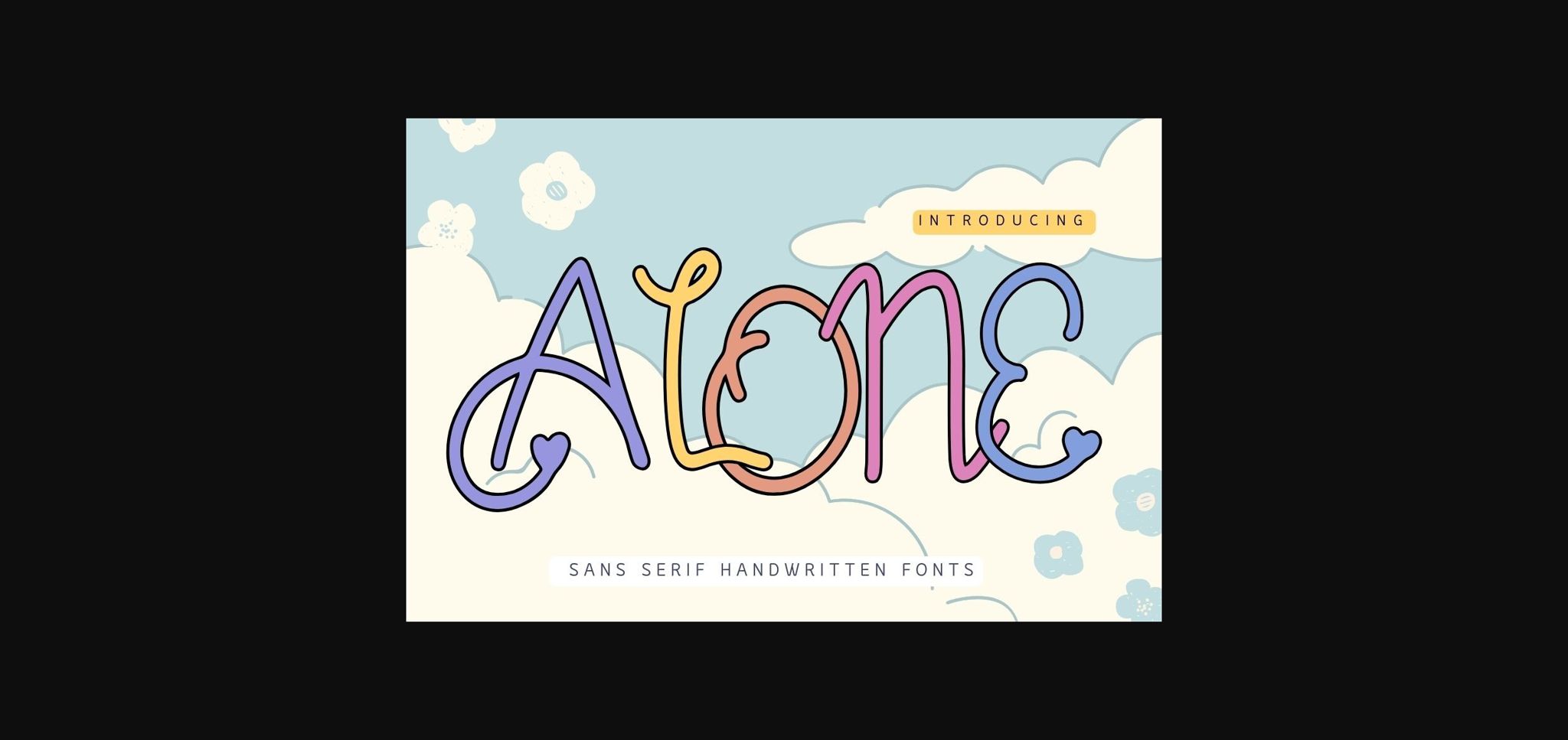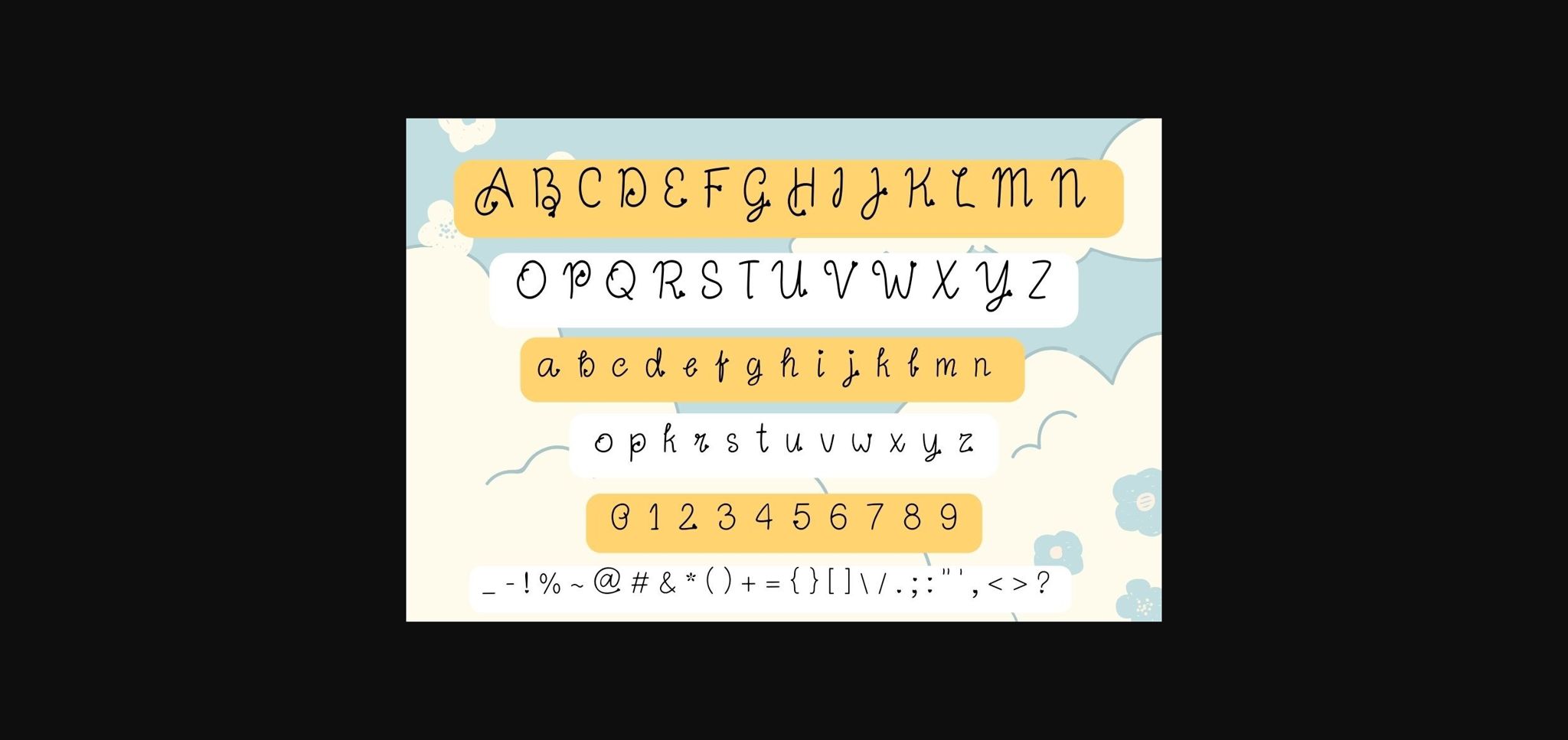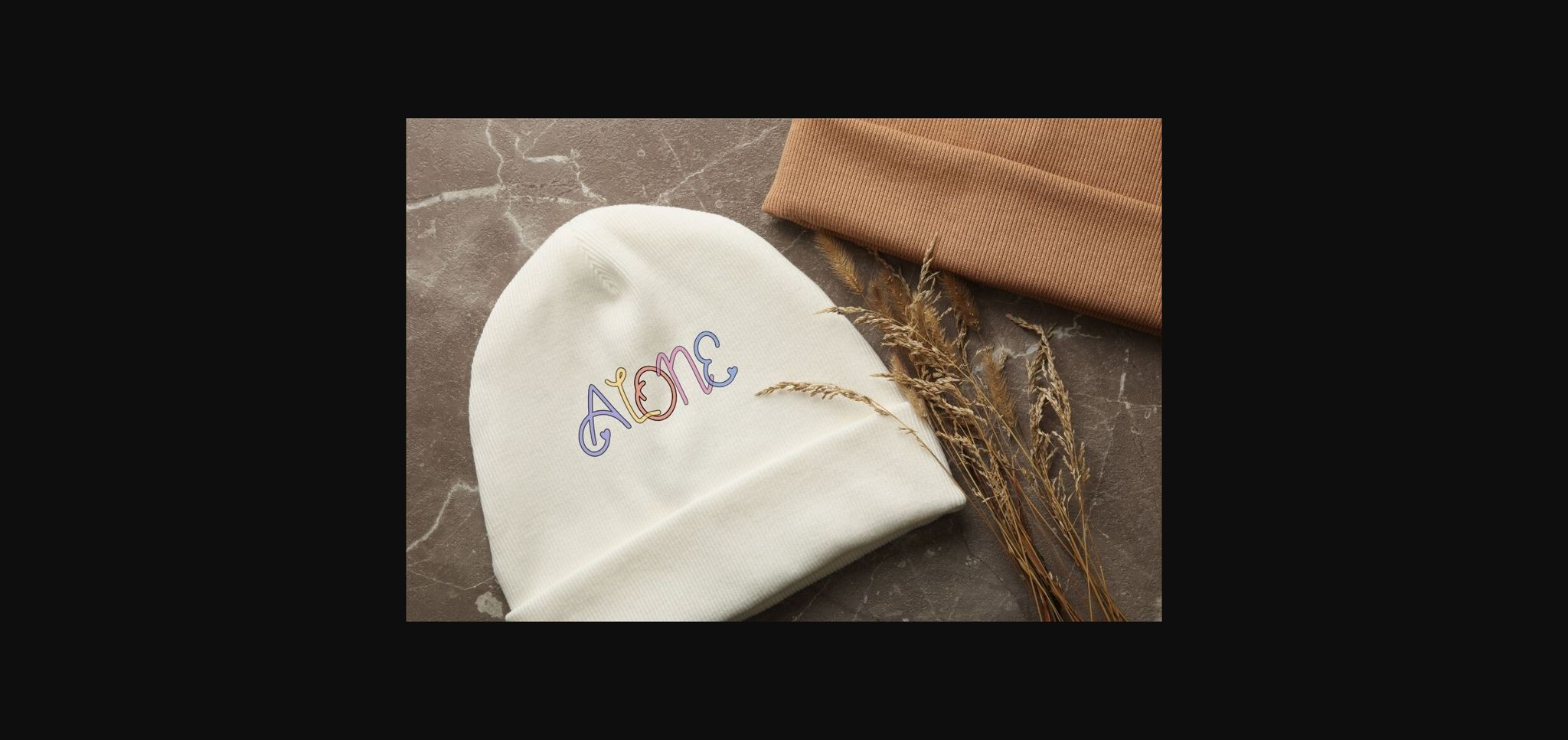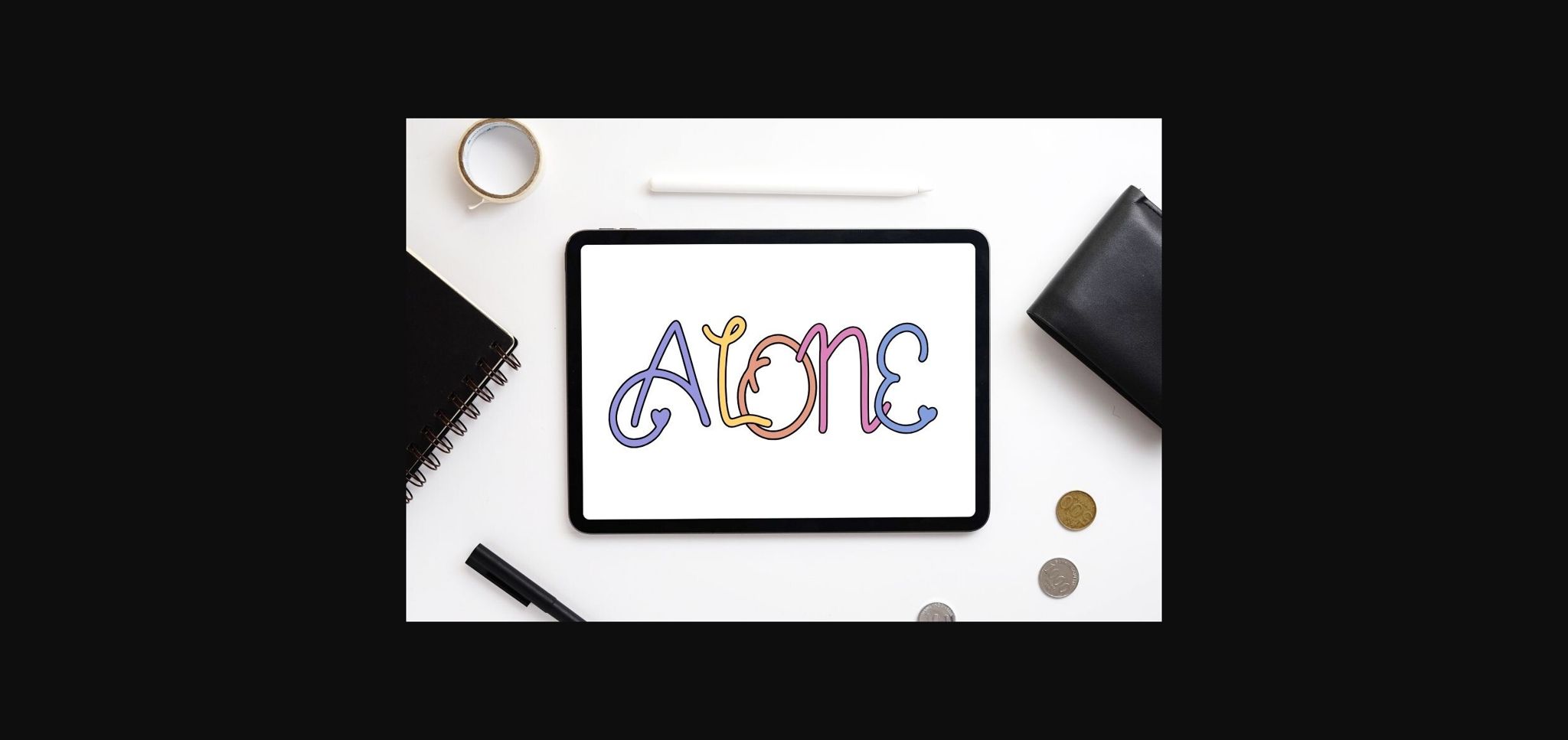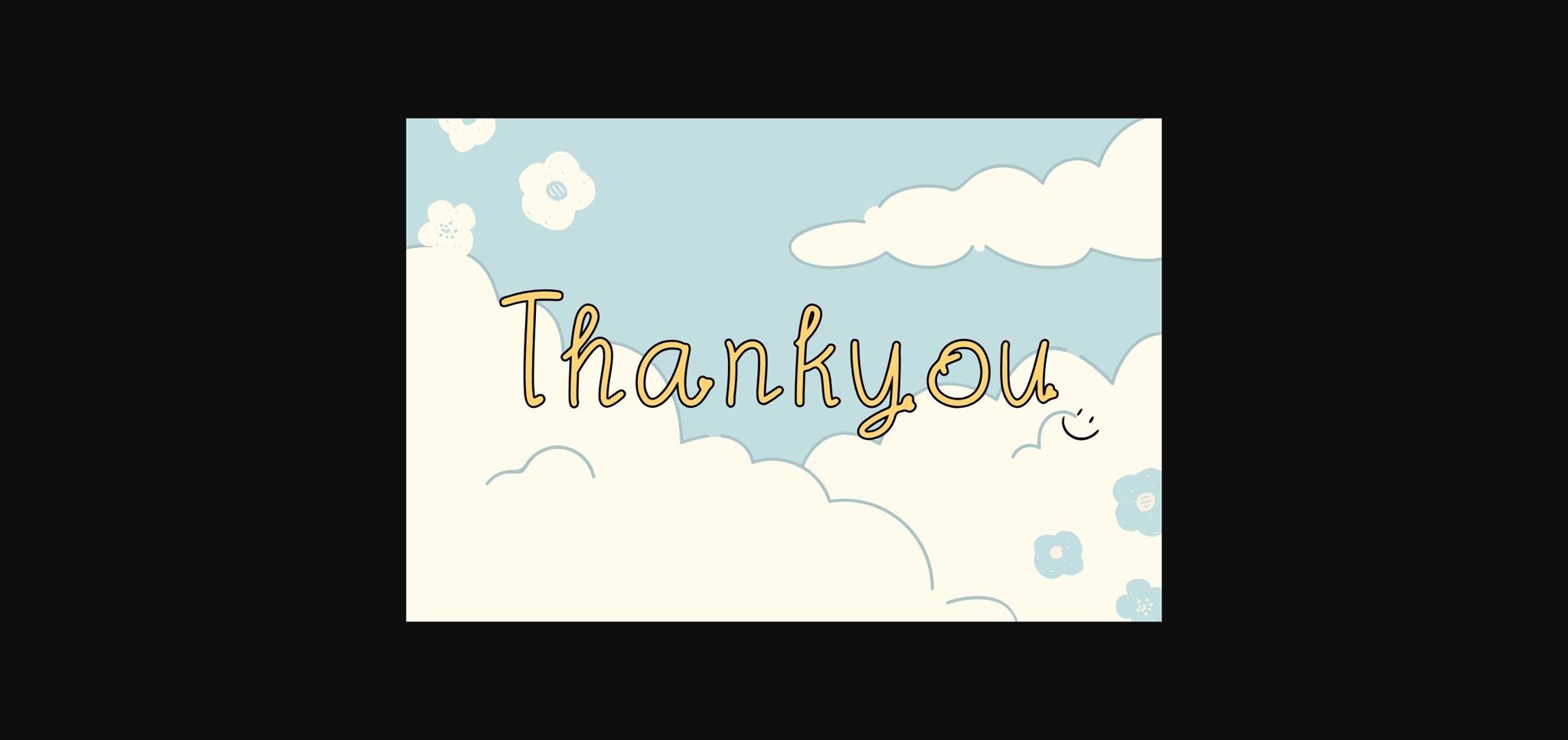
About Alone Font
Alone is a funny and stylish sans serif handwritten font, designed to add a touch of elegance to any project. With its graceful and fluid letterforms, this font exudes a sense of beauty and refinement that is perfect for branding, invitations, and editorial design.